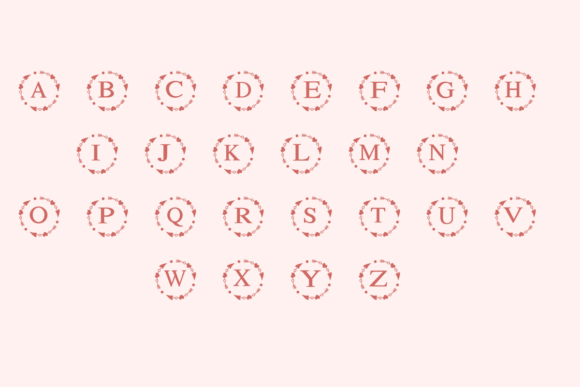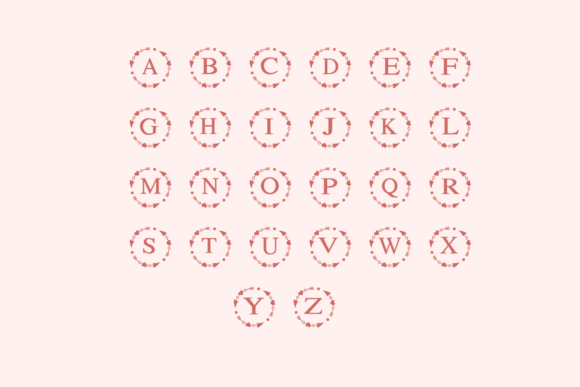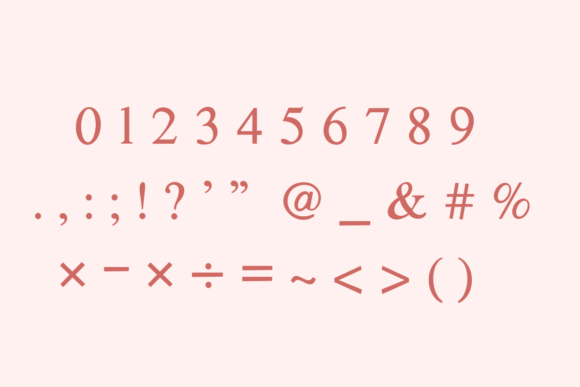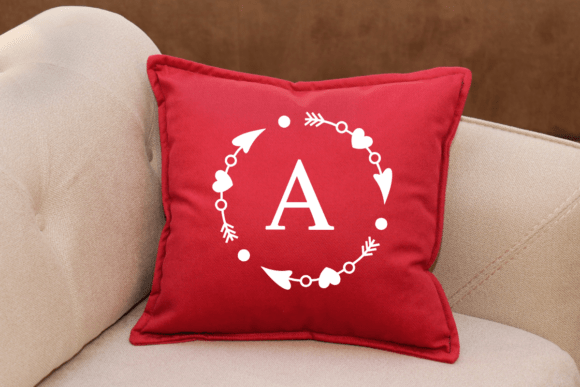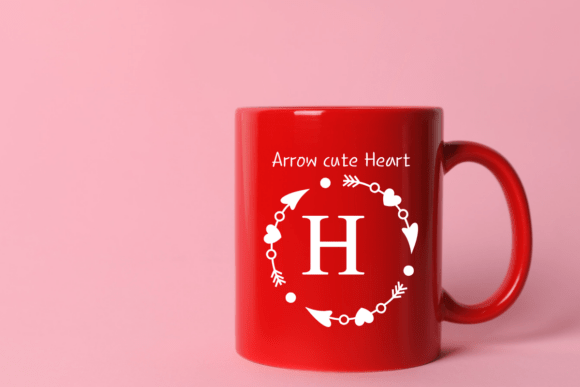
Unleash Your Creativity with Arrow Cute Heart Font
Have you ever been brainstorming a new design project, only to be stuck on finding the perfect font to bring it all together? I know I have. There’s something magical about discovering that one special font that makes your ideas pop.
That’s where Arrow Cute Heart Font comes in – a unique decorative font designed to add a touch of whimsy and charm to your creative projects. This font is perfect for designers looking to add a little extra something to their designs, whether it’s a romantic wedding invitation, a fun birthday card, or a playful social media post. The Arrow Cute Heart Font is a valuable addition to any designer’s toolkit, offering endless possibilities for creative expression.
Arrow Cute Heart Font Key Features
- Font Family: A custom-designed font with a mix of arrow and heart shapes, creating a unique and playful aesthetic.
- Unique Characteristics: The font features a combination of arrow and heart shapes, creating a distinctive and eye-catching visual effect that adds a touch of whimsy to designs.
Designer Review: Arrow Cute Heart Font
Overall, I’d say the Arrow Cute Heart Font is a delightful addition to any project. The ✨ whimsical design and playful feel of the font immediately caught my attention.
Here are some aspects that work well:
- ✨ The font’s unique design is perfect for adding a touch of personality to children’s books, greeting cards, or any project that requires a lighthearted feel.
- ⚠️ The font may not be the best choice for formal or professional projects due to its playful and childlike design.
- ⚠️ Some users may find the font’s irregular design and varied character widths challenging to work with, particularly for complex layouts or text-heavy projects.
- ⚠️ The font’s design may not be suitable for projects that require a high level of readability or legibility, such as academic or technical documents.
Overall, I’d give the Arrow Cute Heart Font 4 out of 5 stars. While it has its limitations, its unique design and versatility make it a great choice for the right project.
The Arrow Cute Heart Font is ideal for creating playful and whimsical designs, such as Valentine’s Day cards, wedding invitations, and social media graphics.
To get the most out of this font, experiment with different font combinations and color schemes to create a unique and eye-catching look.
Remember to use the font in moderation, as it can be overwhelming if used excessively.